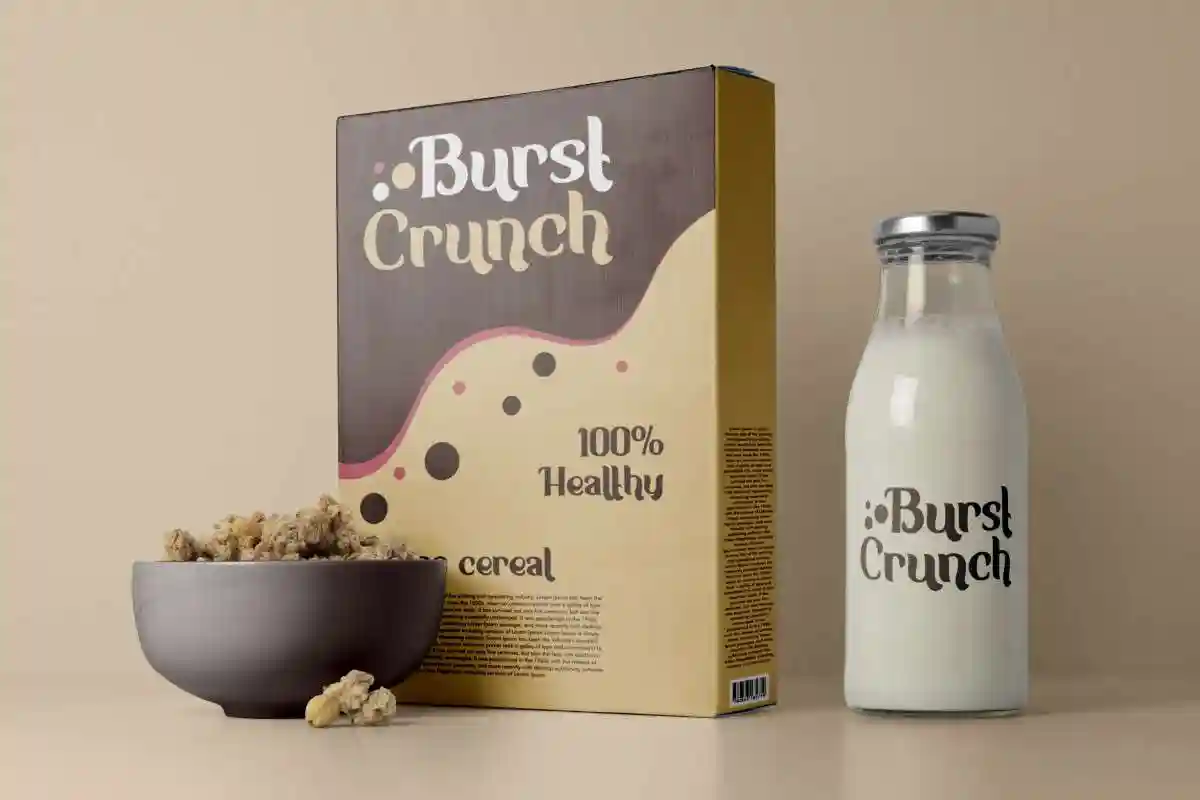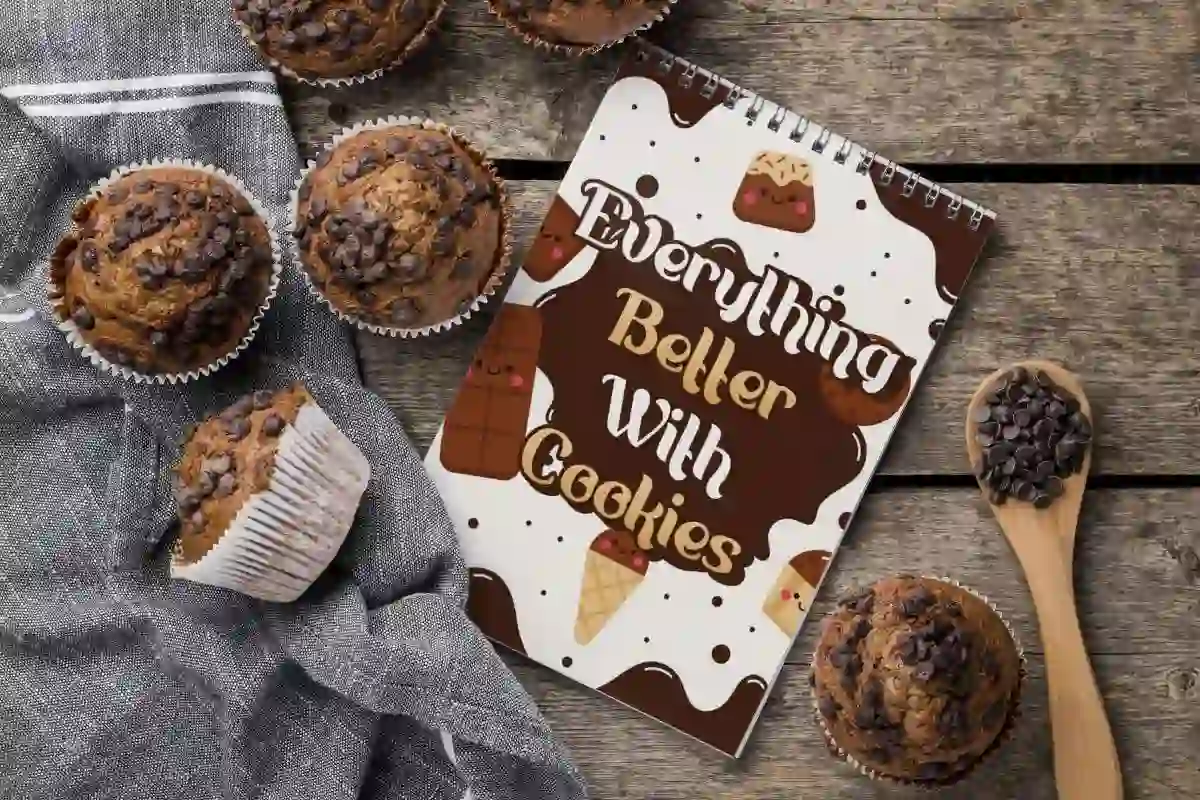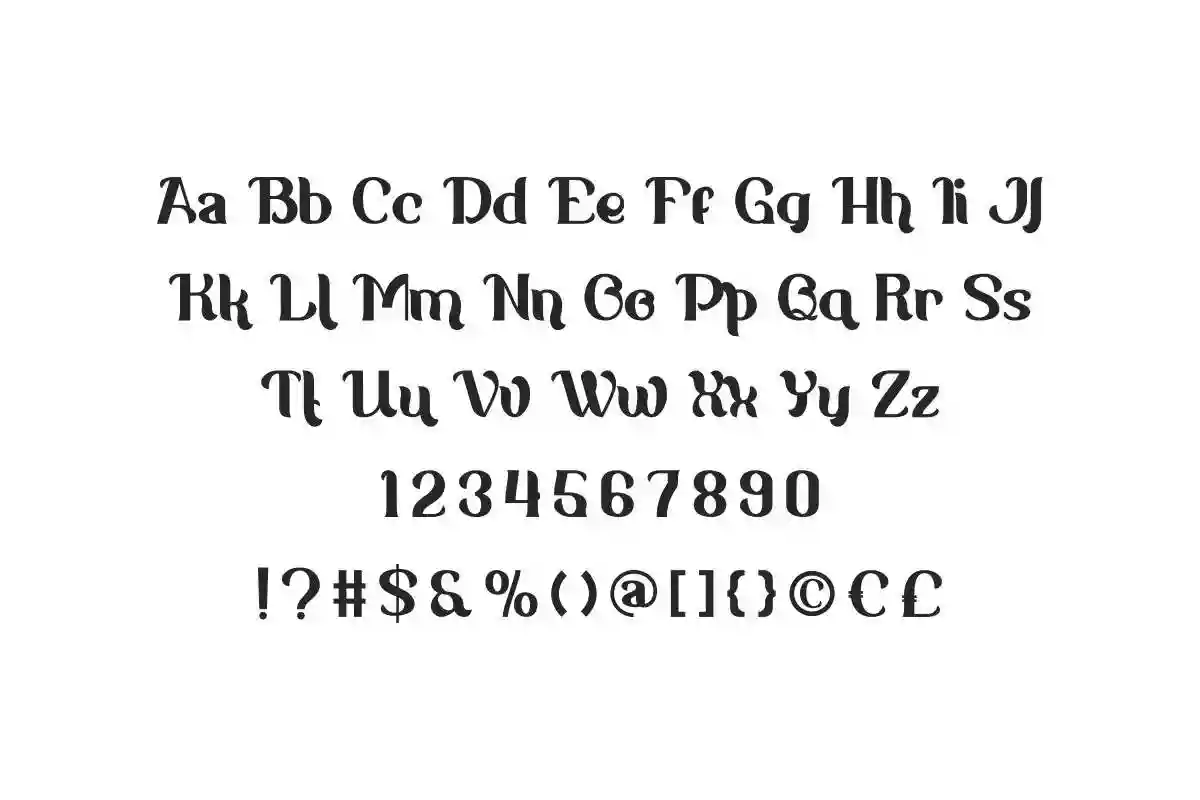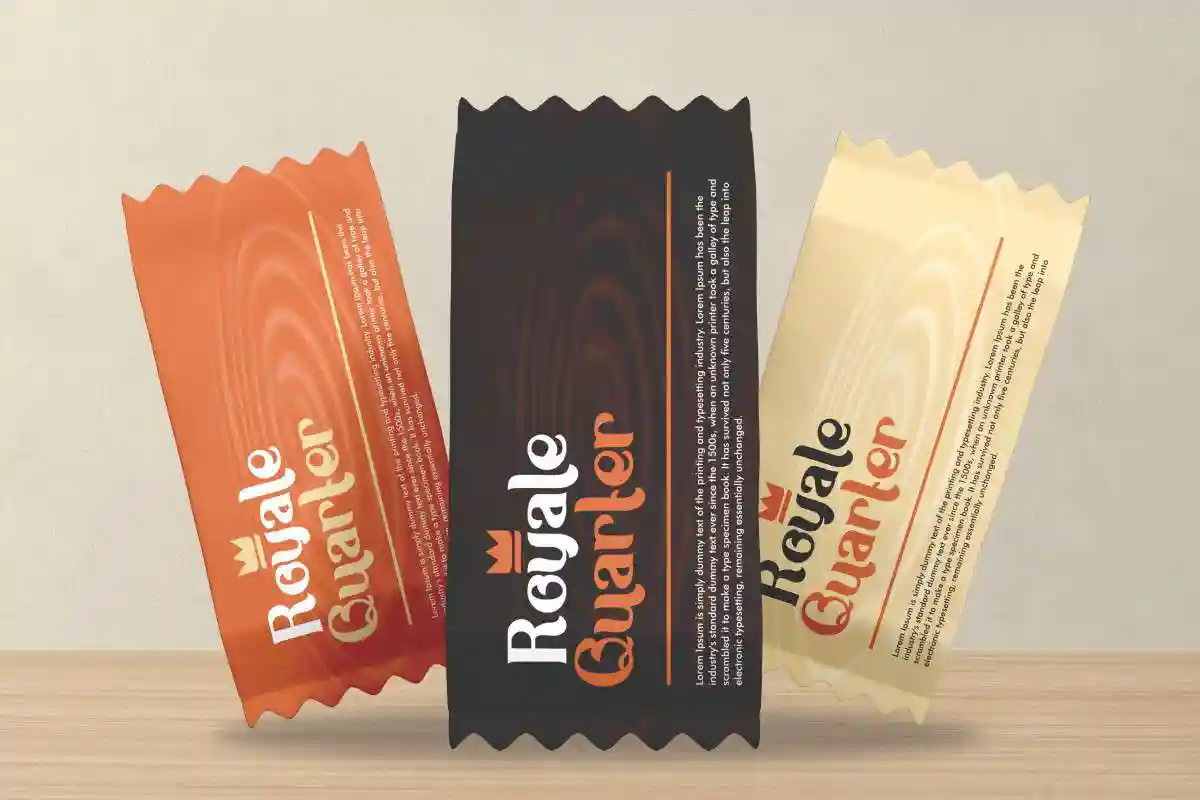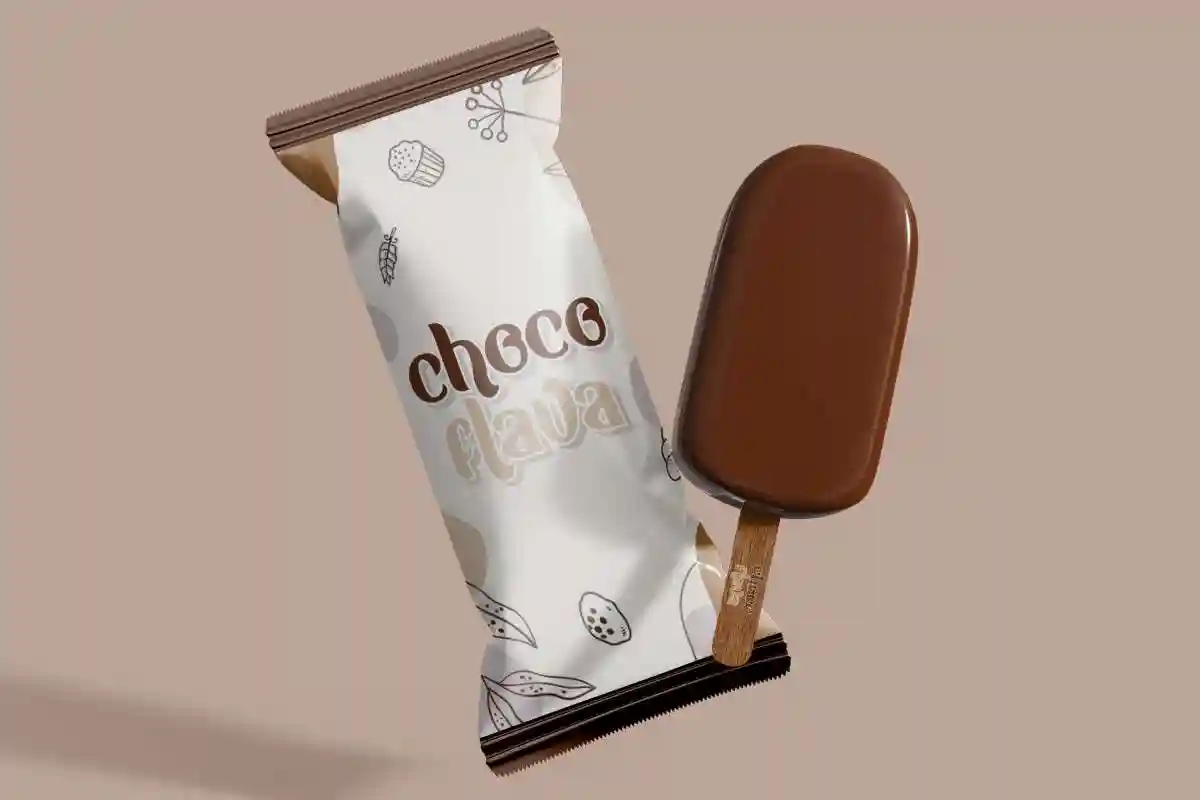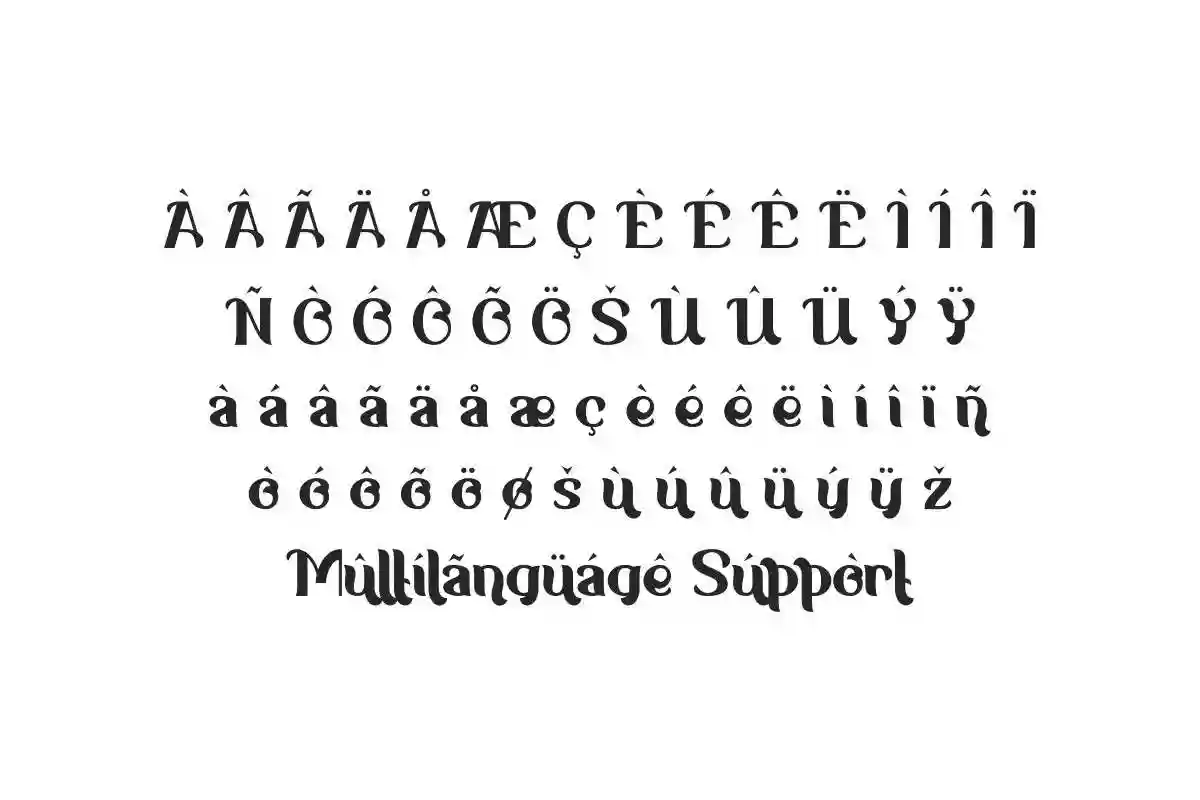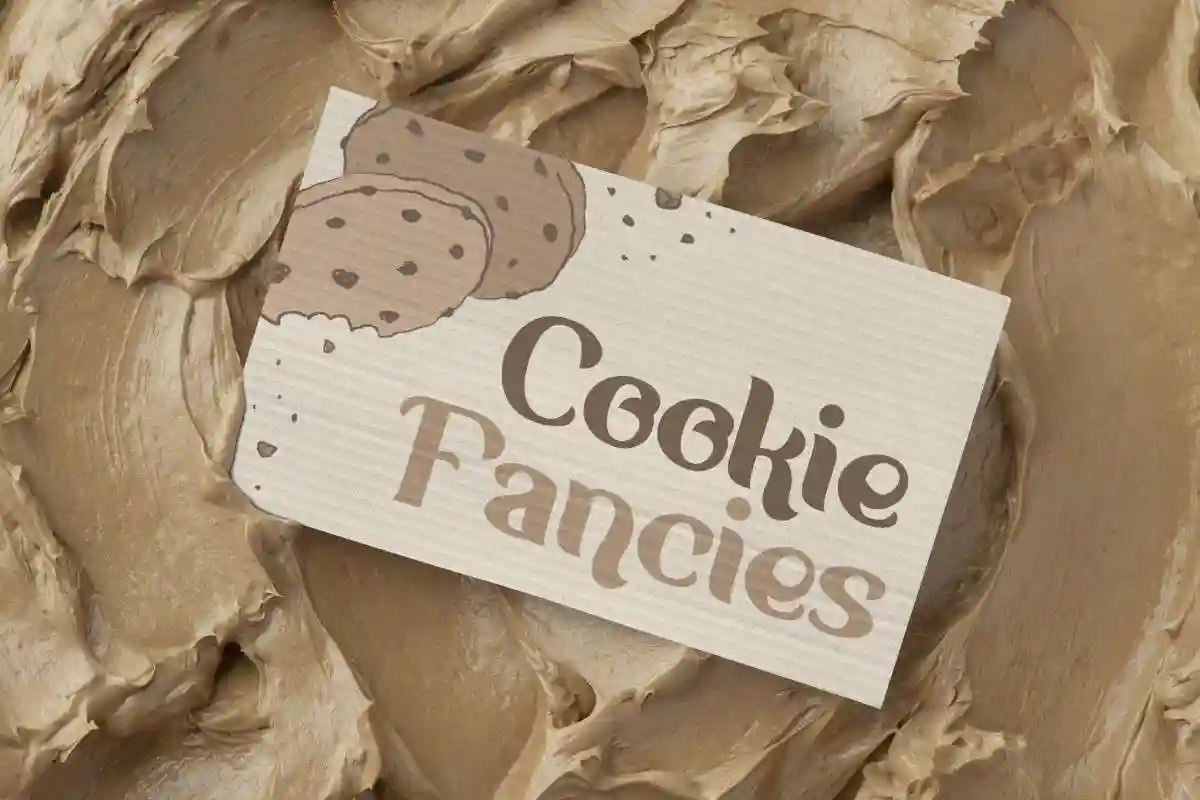
Choco Truffle Font is a playful and fun display font, inspired from a delicious snack. This font will add an authentic fun look to your beverage brands, restaurant, school, etc.
Choco Truffle Font is a playful display font with special fun style. This basic font has a beautiful bold variation, which will give your designs a fun and stylish look, such as billboard, brand logo, cover, header, label, packaging design, stationery, sticker, watermark, and much more!
Choco Truffle Font comes with a full set of Uppercase and Lowercase Basic Characters, Number, Punctuation, Symbol. This font takes inspiration from a vintage typeface, which is a groovy look. This will add authentic art to the font. Use this for your business industry such as, bakery, café, cake, pastry, restaurant, snack brand, etc.